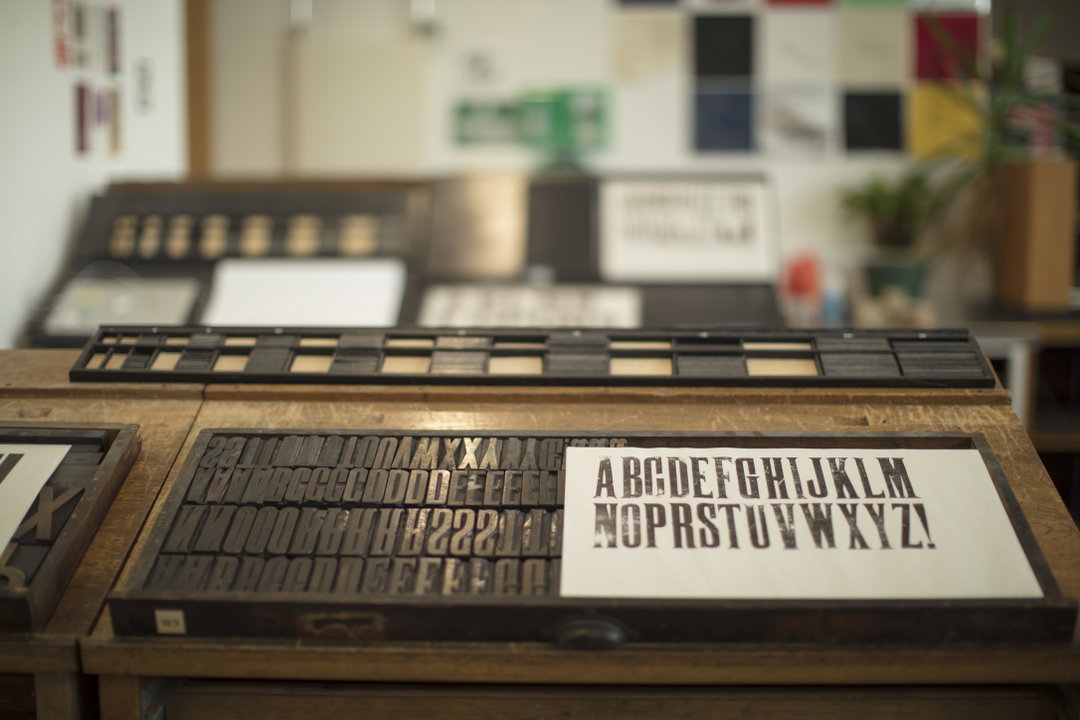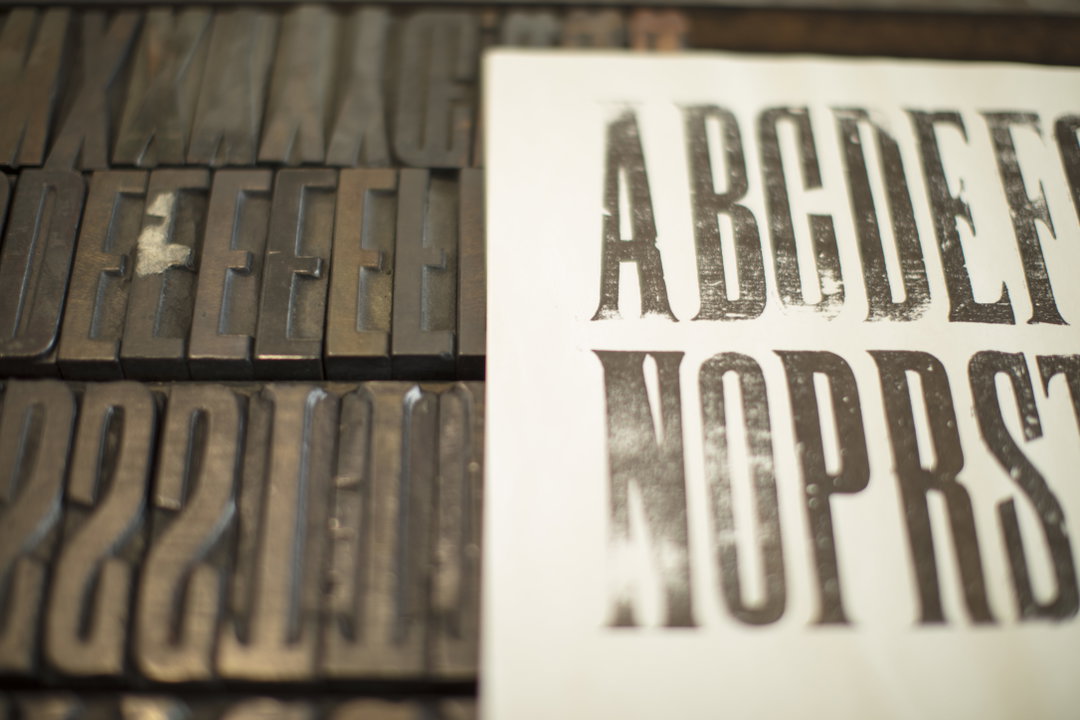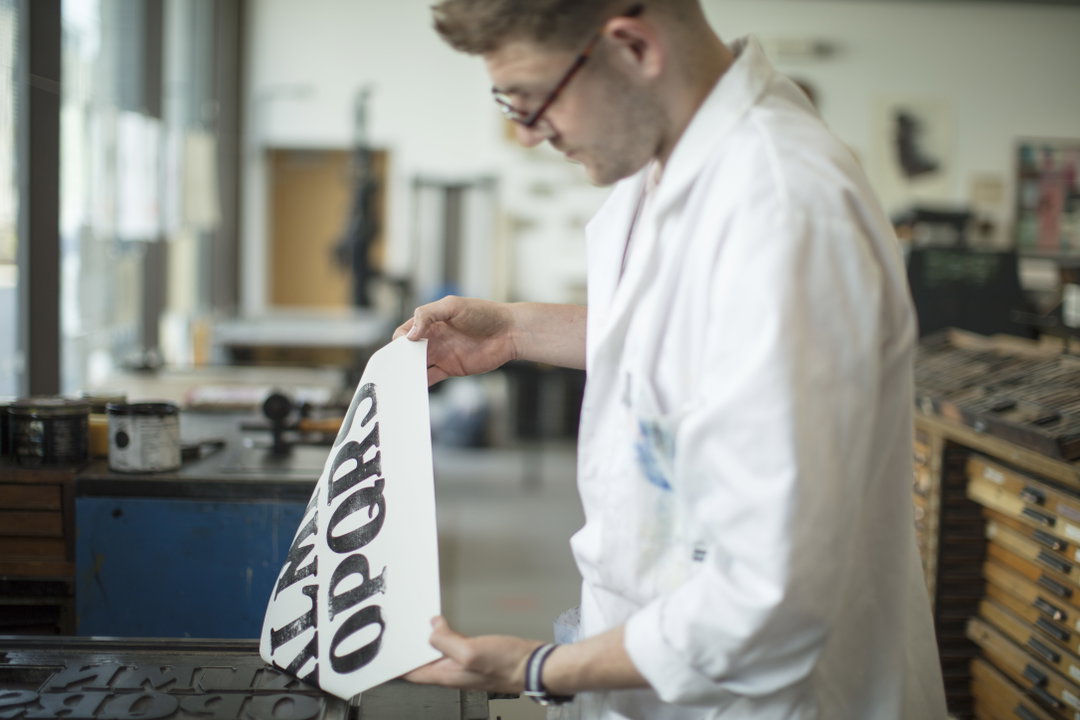
James Brocklehurst, leader of the graphic design course at Plymouth, talks us through the university’s new experimental font
The university is experimenting with letterpress to create the PlymouthPress typeface.
James Brocklehurst is leading a new kind of innovation method for typography, harking back to the good old days of letterpress. The technology uses scanned letterpress prints for each letter, and through scripting, randomly cycles through a range of alternate letterforms whilst you type.
Brocklehurst explains to us that the letterpress workshop at the university is a special one, which has one of the most “extensive collections of moveable type, composing desks and presses in a UK university. Unfortunately, not that many people know about it,” continues Brocklehurst, “so I initially started the project as a way of showcasing the workshop to the world.” The random letterforms feature, which Brocklehurst explains is achieved by using a scripting function built into the OpenType font format, involved “a lot of Googling” to figure out from scratch.
According to the programme leader, traditionally, a typesetter would “seek to achieve a clean and solid print,” whilst letterpress is known today for its “distressed” and textured print quality. “I was keen to capture as much of this as possible, and found that the only way to do this convincingly was to use a new feature of the OpenType font format,” he says, “which uses bitmapped images to render each character, instead of plotting the letterforms out mathematically using vectors. Using images allows for shifts in tone and translucency which isn’t possible with traditional methods.” Brocklehurst wanted to include multiple variations for each character, to “convey the diverse range of typefaces available in the workshop.”
The font was misbehaving at first, and there was plenty of trial and error involved, as with any good creative project. Brocklehurst worked with graduate Jordon Hill to produce “multiple prints using variations of ink and pressure so that there were lots of different tones and textures to work with.” Despite all this, it still took a while, and lots of adjustments in Photoshop, “to end up with something that looked cohesive,” comments the educator.
When looking for inspiration for the project, “letterpress master Alan Kitching” was Brocklehurst’s muse. “His work takes this centuries-old process and pushes it in all sorts of surprising directions that you wouldn’t have thought possible,” he explains. “I was also introduced to OpenType feature scripting when Tom Foley of Monotype, who at the time worked for Dalton Maag, gave a talk to students and demonstrated how their Lush Handwritten typeface worked,” concludes Brocklehurst.